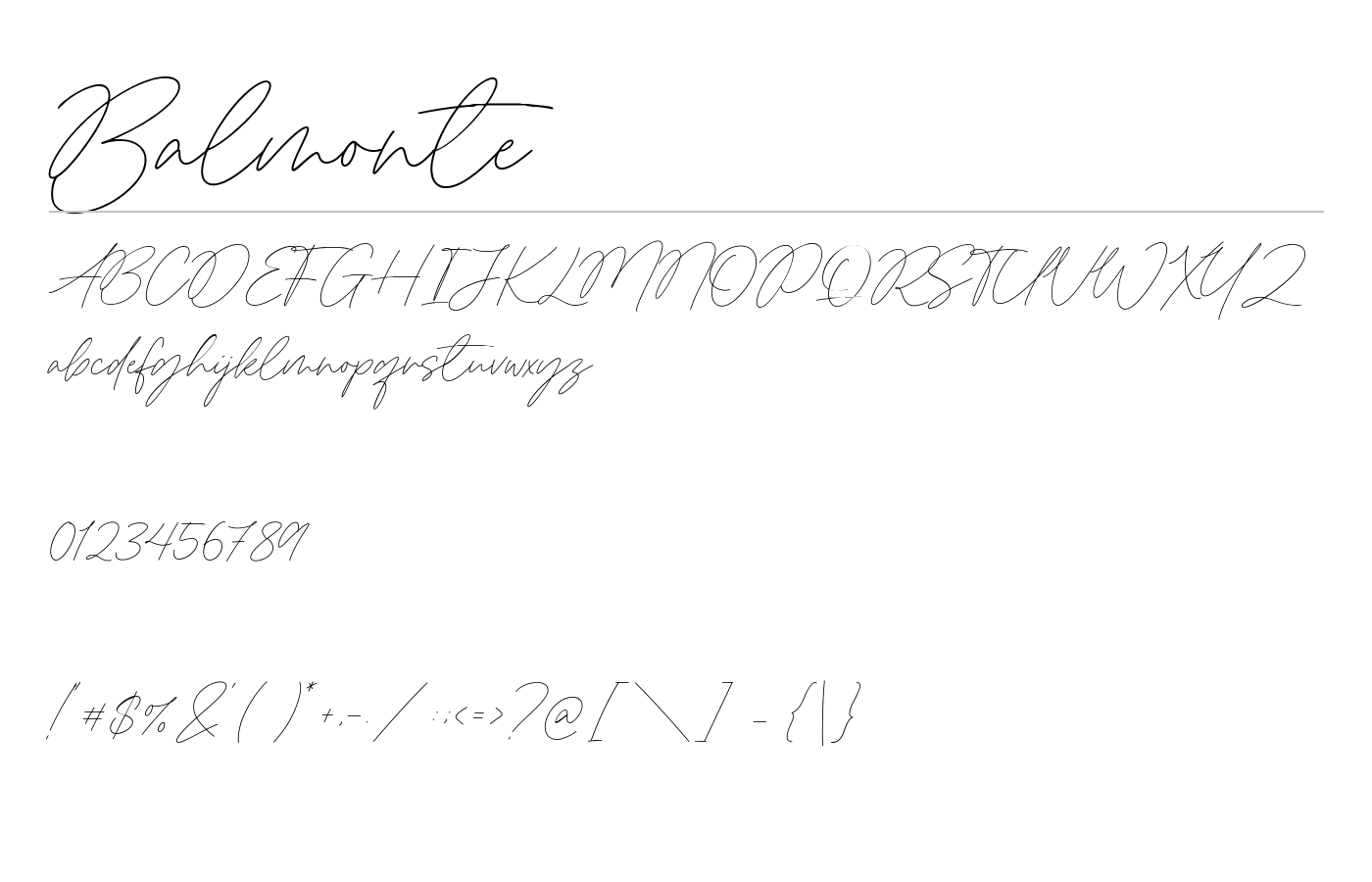
Balmonte is an elegant, delicate script font characterized by its thin, flowing strokes and graceful letterforms. With a handwritten feel and airy spacing, it conveys a sophisticated and modern charm, making it ideal for luxury branding, wedding invitations, and stylish editorial design. Its refined, cursive style adds a personal, artistic touch while maintaining readability in titles and logos.
Balmonte Font
About Balmonte Font